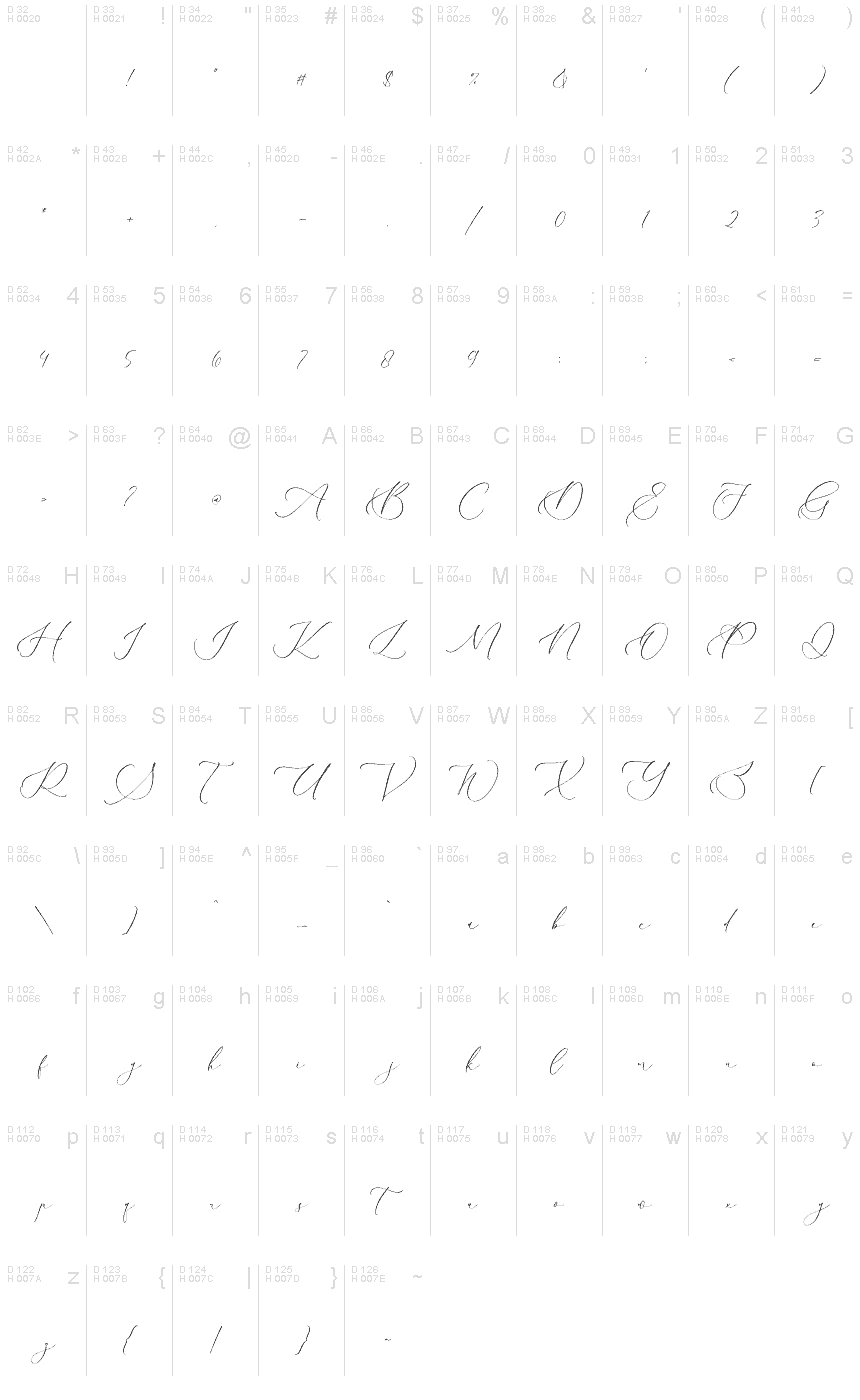
Charttisle Wadfield
Charttisle Wadfield font from Storytype Studio is a graceful free handwritten typeface with a light, elegant style reminiscent of personal handwriting and a signature-like appearance. The beautifully flowing letters deliver sophistication when written on dark and bright backgrounds. Intricate connections in letters further accentuate the delicate design opting for visual enhancement in every word.
Use Charttisle Wadfield to make professional invitations, greeting cards, posters, menus, quotes, logos, labels, packaging designs, branding projects, advertisements, and social media posts. Woodcraft projects for personalization also benefit from the impressive typographic works achieved by this beautiful light font.